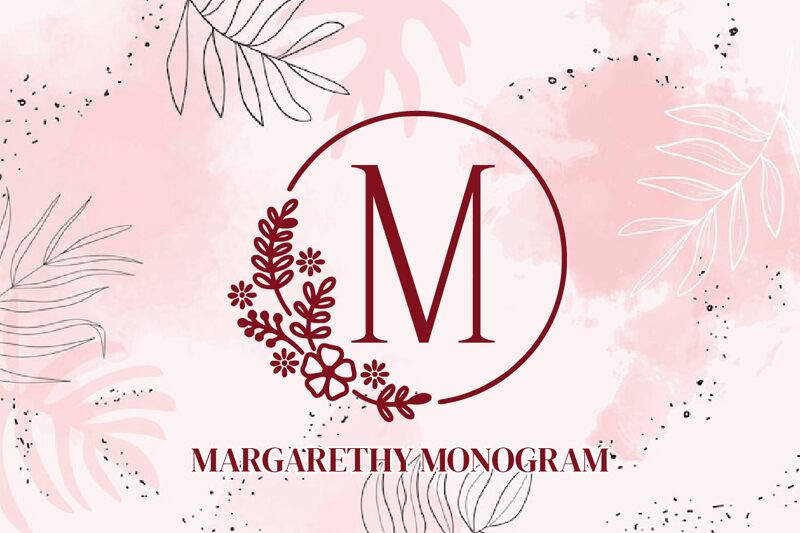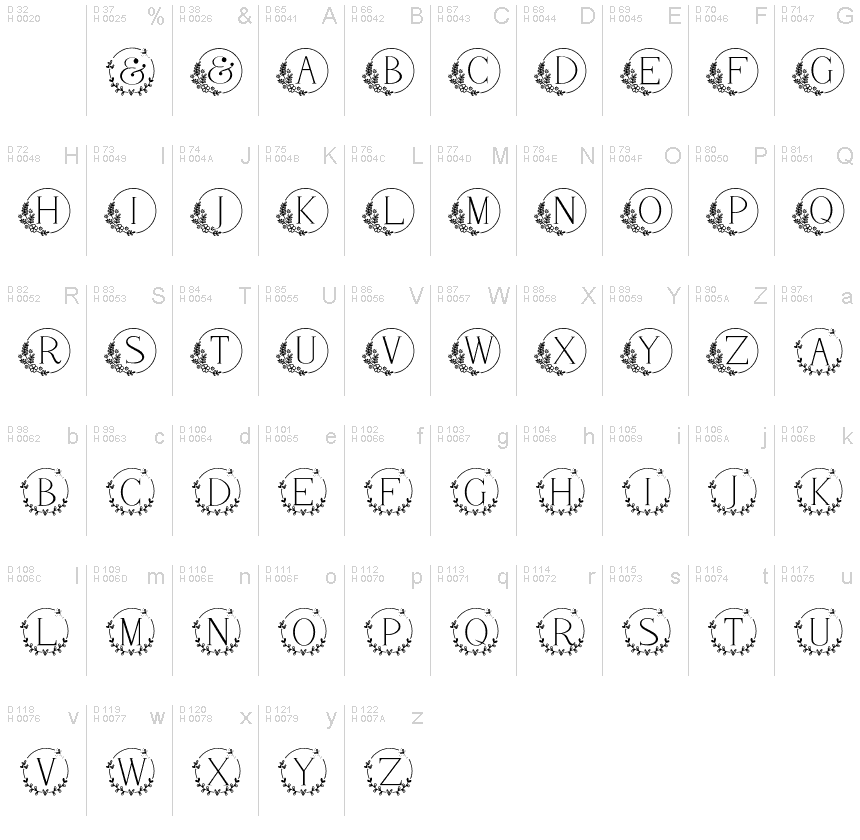
Margarethy
Margarethy, a creation of Letterayu, is a stunning display font that exudes elegance and charm. With its semi-light weight and semi-condensed width, Margarethy is perfect for adding a touch of sophistication to various design projects.
This decorative font is particularly suitable for wedding invitations, where it can beautifully showcase the couple's initials in elegant circle monograms. It can also be used in branding materials for high-end events or upscale products, creating a luxurious and refined aesthetic. Whether it's on stationery, packaging, or digital designs, Margarethy elevates any project into a true work of art inspired by the beauty of brides' bouquets.